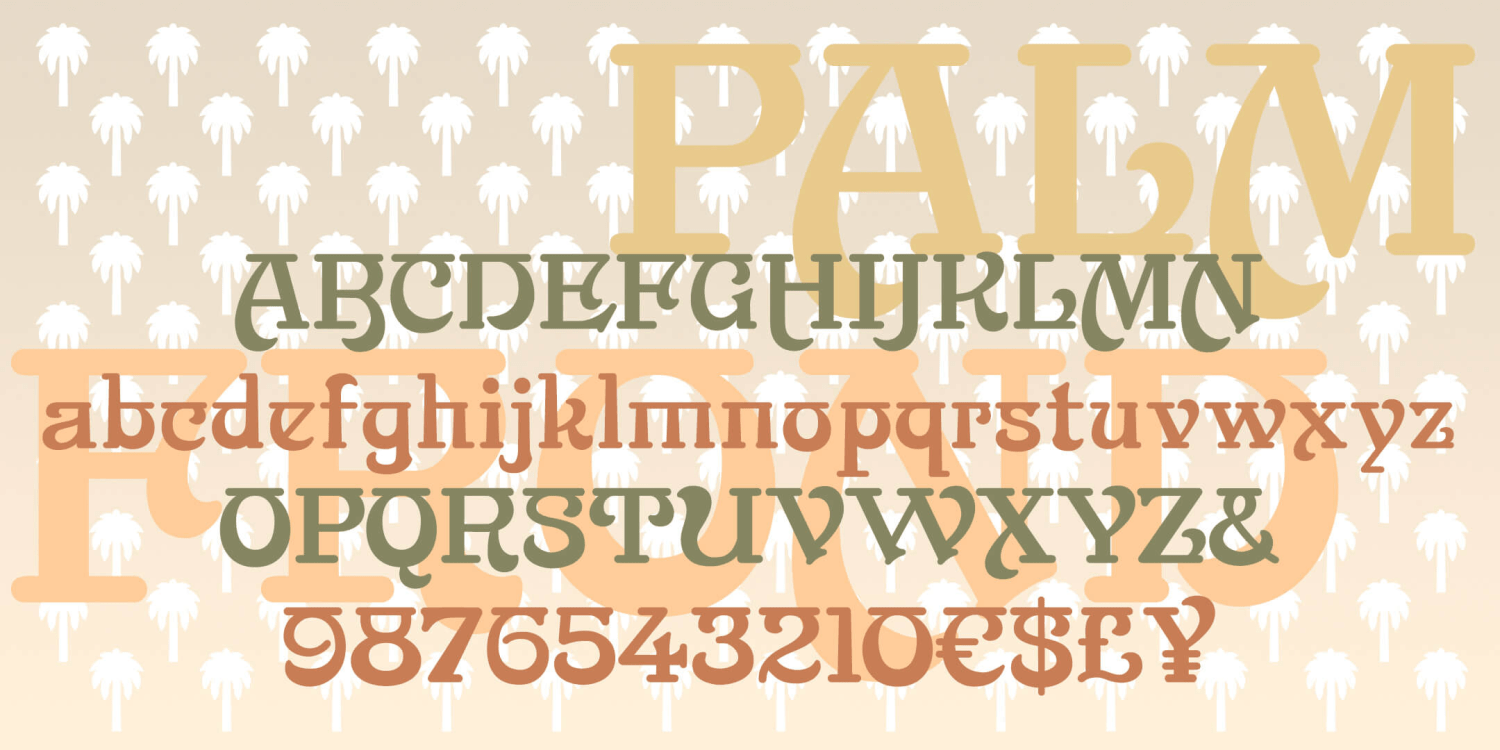
HomeFont BrosHandwrittenPalm Frond HandwrittenSerifHistorical Palm Frond FacebookXPinterestWhatsApp 1 of 1 About Palm Frond PALM FROND is a stylish display font inspired by a 19th-century typeface. Broad swashes give a feeling of Art Nouveau and horizontal strokes suggest Indian scripts.  DOWNLOAD NOW People also explored Holiday Park Font Dorothy Font Hounted House Font Laboon Font Cafetoria Font Gerard Font The Raflesia Arnoldy Font Camo Crew Font Butterfry Font 221 0 TagsPalm Frond Font Previous articlePlz ScriptNext articleAnti Hero Intl BB LEAVE A REPLY Cancel reply Comment: Please enter your comment! Name:* Please enter your name here Email:* You have entered an incorrect email address! Please enter your email address here Website: Save my name, email, and website in this browser for the next time I comment. Personal Use Free Mellow Personal Use Free Read more about this font Bolt Electric Personal Use Free Read more about this font Juliagar Personal Use Free Read more about this font The Brighton Personal Use Free Read more about this font BLOG Free Fonts Risk: Why Free Fonts Can Be Dangerous for Designers Free Fonts Risk: Why Free Fonts Can Be Dangerous for Designers Using free fonts is a common practice in web and graphic design. However, the... To increase your work productivity, choose the most readable fonts. Modern Sans-Serif Fonts That Brands Love in 2025 Using Fonts in Digital Marketing: Tips to Strengthen Your Brand Identity